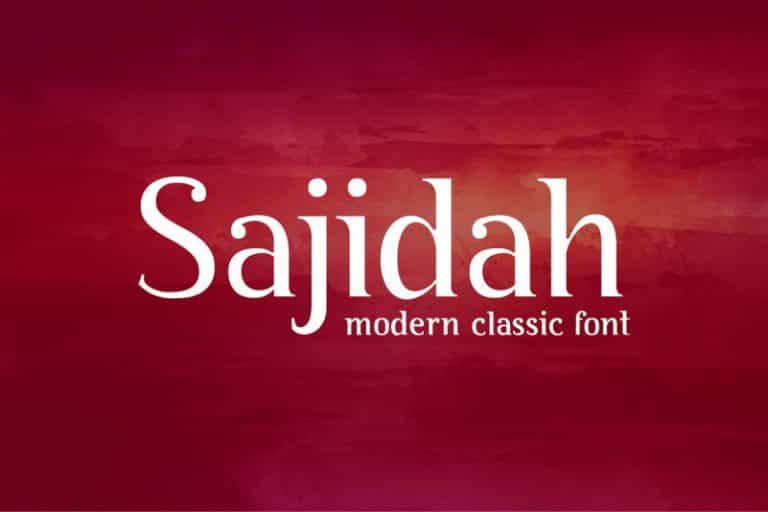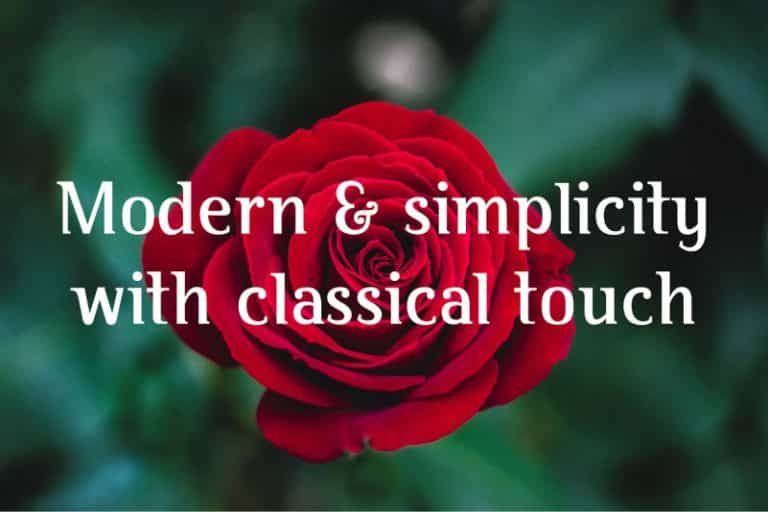
Discover BY Sajidah Modern Classical Font, part of the Serif collection—a versatile and unique font perfect for adding a personal touch to your projects. Download it for free and enjoy crafting designs with style, from invitations to social media posts. This font is available exclusively for personal use, giving you the freedom to create without limits. Unlock your creativity with BY Sajidah Modern Classical Font today!
I am so grateful for looking through Sajidah Serif Font. This is a delicate and trustworthy serif that goes well with any kind of text. Sajidah designed the BY and byaboemair put it to use. The Sajidah Modern Classical Font is a modern classical serif font. Sajidah is a font that has a modern look and can be used to give the womanly and contemporary impact without losing the classic serif taste.